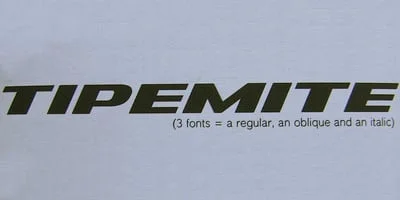
Tipemite Font
Tipemite Font is ideal for organic pest control companies, natural farming cooperatives, entomology research institutions, eco-friendly agricultural services, termite inspection businesses, wood preservation specialists, and sustainable building material retailers. This industrious typeface captures the persistent nature and organized structure of termite colonies, bringing natural determination and structural integrity to any design project celebrating environmental solutions and sustainable practices.
What makes Tipemite Font exciting is its fascinating combination of natural persistence and structural organization that perfectly embodies the industrious nature and environmental adaptation of these remarkable insects. The font features structured letterforms with colony-inspired details and organic character variations that evoke both the systematic organization of termite societies and the natural resilience of environmental adaptation. Its determined character appeals to eco-conscious audiences while maintaining excellent readability for both environmental documentation and sustainable business applications.
The Tipemite Font family includes regular and bold weights with complementary organic variations and environmental ornamental elements. The character set features structural ligatures, natural symbols, eco-friendly alternates, and sustainable decorative accents that enhance the font's authentic appeal. Extended character support includes environmental symbols and organic farming icons for genuine sustainability and natural agriculture applications.
Whether you're designing eco-friendly pest control brands, creating sustainable agriculture materials, or developing environmental education content, Tipemite Font provides exceptional natural authenticity and versatility. This industrious typeface transforms ordinary text into meaningful environmental experiences that celebrate natural solutions while establishing trusted brand recognition in competitive sustainable agriculture and eco-friendly service marketplaces.